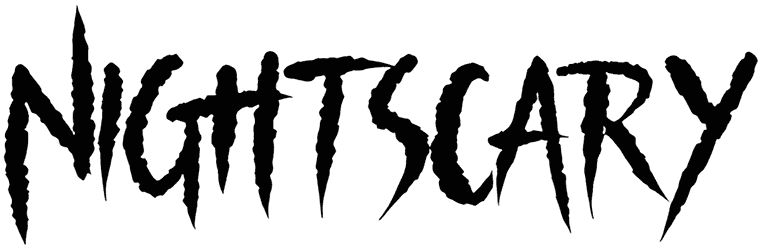
Brutalworld Font
Maybe you are a graphic designer who is confused among dozens of fonts and does not know which font to use to design a poster or brochure for young people. Brutalworld is a death metal font that does not support lowercase letters.
The creative design of this 80s brush font attracts the attention of young people and teenagers and conveys a sense of excitement to them. Brutalworld is perfect for designing video games and movie posters.
Designed by: Tigade Std